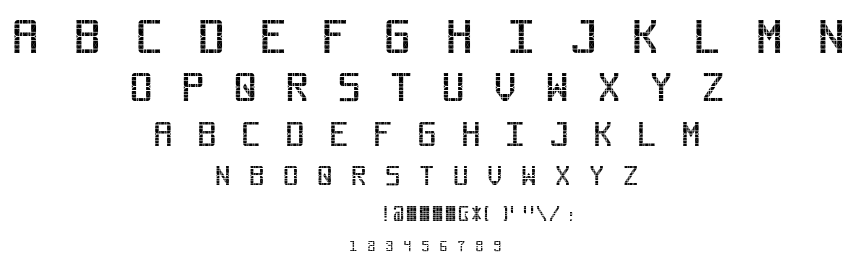
Commuter is based on the interior signage on the Light Rail that runs between Portland and the airport. There are several typefaces that have this concept, but what really interested me was the second layer of grids that was nearly invisible until one gets close.